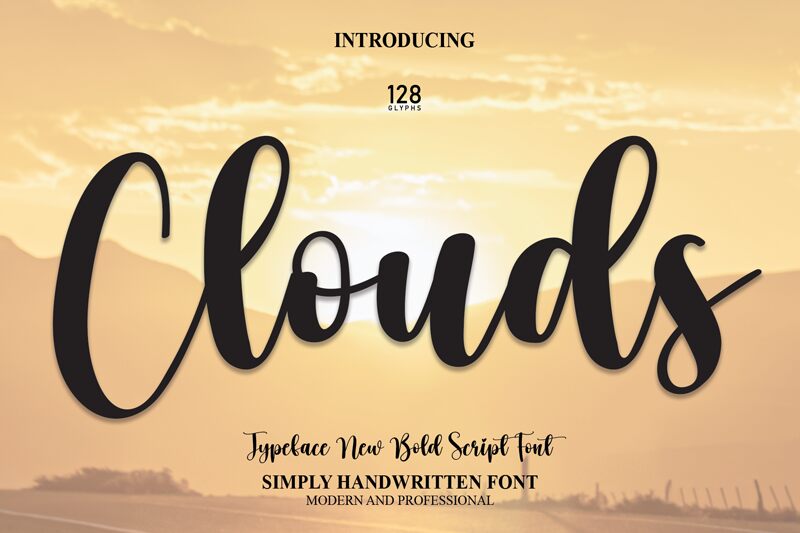
Clouds
Clouds, designed by Scratchones, encapsulates the charm of handwritten artistry in its semi-bold stylings. Its fluid curves and gentle sways reflect a casual elegance that lends itself to a multitude of design purposes. The font's handwritten aesthetic combines a personal touch with the clarity and presence of semi-bold weight, making it an excellent choice for projects seeking to convey warmth and approachability without sacrificing impact.
With its natural flow reminiscent of a swift pen on paper, Clouds is ideally suited for creative endeavors that require a touch of humanity—be it in branding, invitations, or editorial designs. The style speaks to those looking for authenticity paired with readability, ensuring that messages are not only seen but felt. Embrace the bespoke feel of Clouds for your next project and let its unique character elevate your design narrative.